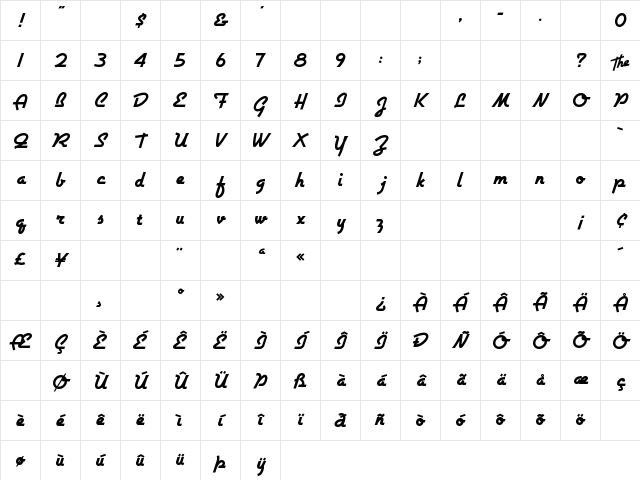
Airstream Regular Free Font
Airstream Regular
Design Context for Airstream
Airstream is a composed and adaptable typeface that performs quietly and consistently across a wide range of design contexts.